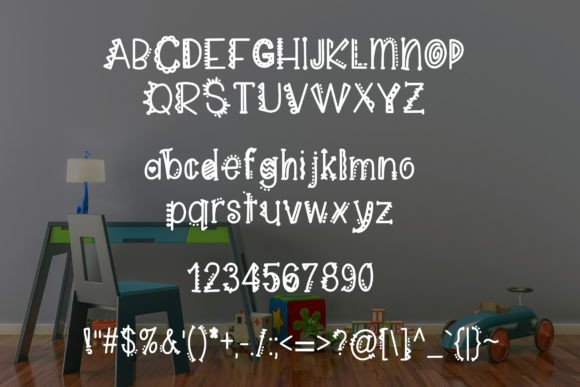
Introduction to Crazy Day Font
Introducing Crazy Day, a whimsical and playful font that brings out the fun in your designs.
With its quirky letterforms adorned with heart accents and dotted edges, this font adds a burst of joy to any project Perfect for party invitations, playful logos, or any design that needs a touch of lightheartedness.